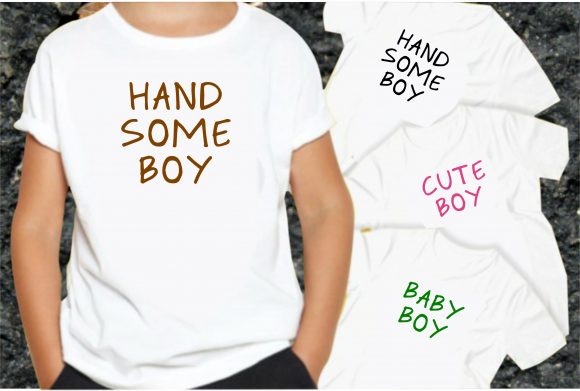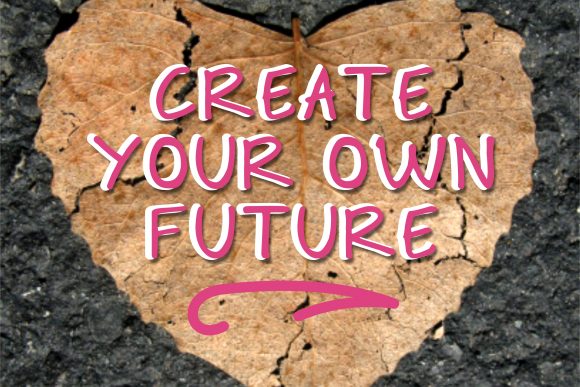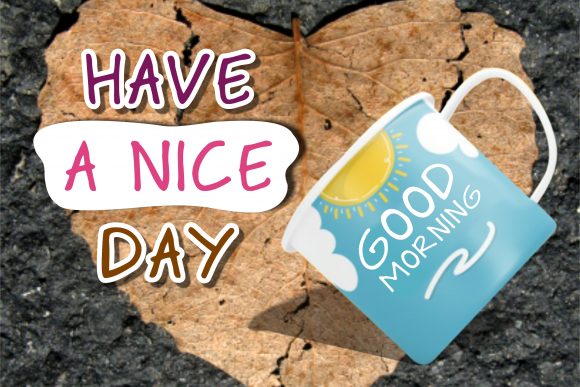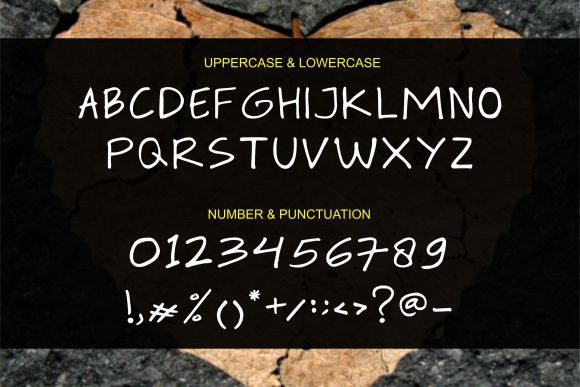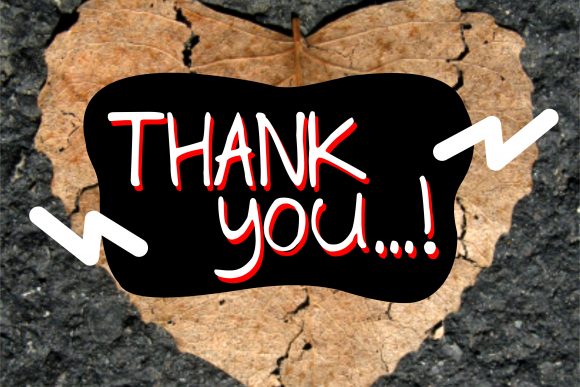
Introducing Flavors Heart Font: The Perfect Handwritten Font for Friendly Designs
Are you tired of using the same old fonts in your designs? Do you want to add a touch of warmth and personality to your projects? Look no further than Flavors Heart Font, a natural, readable, and down-to-earth handwritten font that’s perfect for informal and friendly designs.
What is Flavors Heart Font?
Flavors Heart Font is a beautiful, handcrafted font that’s designed to bring a sense of casualness and relaxation to your designs. With its unique and charming letterforms, this font is sure to capture the hearts of your audience and make your designs stand out from the crowd.
Characteristics of Flavors Heart Font
So, what makes Flavors Heart Font so special? Here are just a few of its key characteristics:
• Natural and Readable: Flavors Heart Font is designed to be easy to read, making it perfect for body text and longer blocks of content.
• Down-to-Earth: This font has a friendly, approachable feel that’s perfect for designs that need to feel relaxed and informal.
• Handwritten: With its unique, handcrafted letterforms, Flavors Heart Font adds a touch of personality and warmth to any design.
• Casual and Relaxed: This font is perfect for designs that need to feel laid-back and friendly, making it ideal for use in projects like branding, packaging, and more.
Uses for Flavors Heart Font
So, what can you use Flavors Heart Font for? The possibilities are endless! Here are just a few ideas to get you started:
• Branding: Use Flavors Heart Font to create a friendly, approachable brand identity that resonates with your audience.
• Packaging: Add a touch of warmth and personality to your packaging designs with this charming font.
• Social Media: Use Flavors Heart Font to create engaging, eye-catching social media graphics that stand out from the crowd.
• Blogging: Add a personal touch to your blog with Flavors Heart Font, perfect for use in headings, titles, and more.
Why Choose Flavors Heart Font?
With so many fonts to choose from, why should you choose Flavors Heart Font? Here are just a few reasons why this font stands out:
• Unique and Charming: Flavors Heart Font has a unique, handcrafted feel that’s sure to make your designs stand out.
• Highly Readable: This font is designed to be easy to read, making it perfect for use in a variety of projects.
• Versatile: Flavors Heart Font can be used in a wide range of projects, from branding and packaging to social media and blogging.
Tips for Using Flavors Heart Font
Here are a few tips for getting the most out of Flavors Heart Font:
• Use it as a Headline Font: Flavors Heart Font is perfect for use in headlines and titles, where its unique and charming letterforms can really shine.
• Pair it with Other Fonts: Experiment with pairing Flavors Heart Font with other fonts to create a unique and eye-catching design.
• Use it in Combination with Images: Flavors Heart Font looks great when used in combination with images, particularly those with a natural or rustic feel.